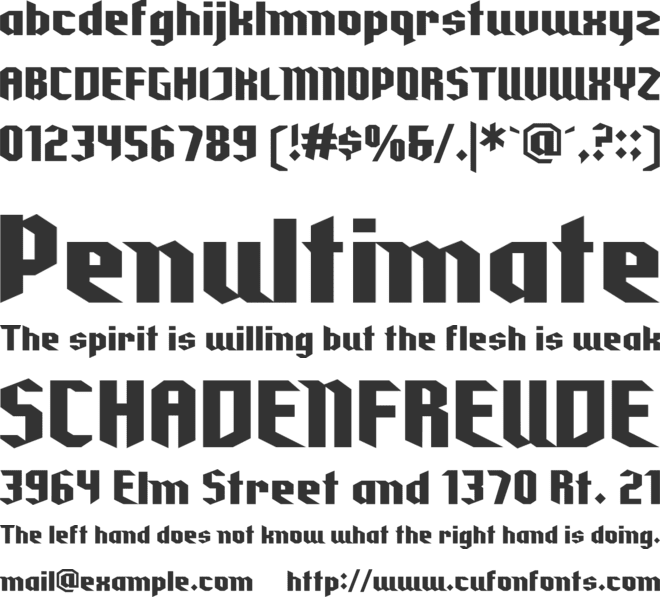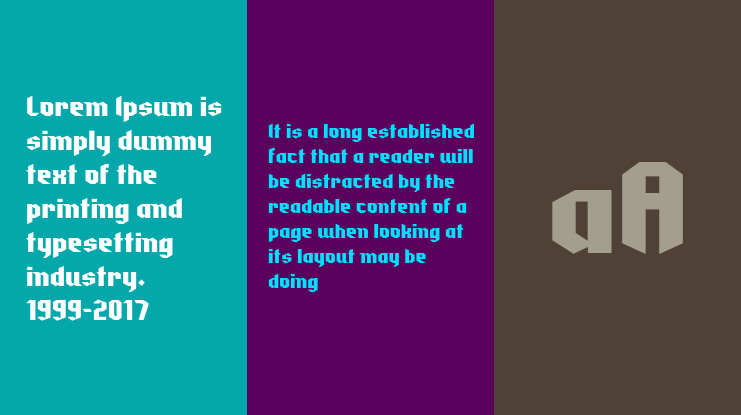
Jupitor Font
Michael Tension
Jupitor is a typeface created from the six letters used in the original Jupiler Beer logo. No such typeface existed, so I made one.